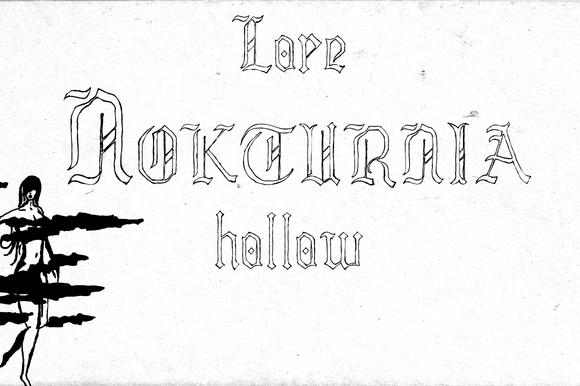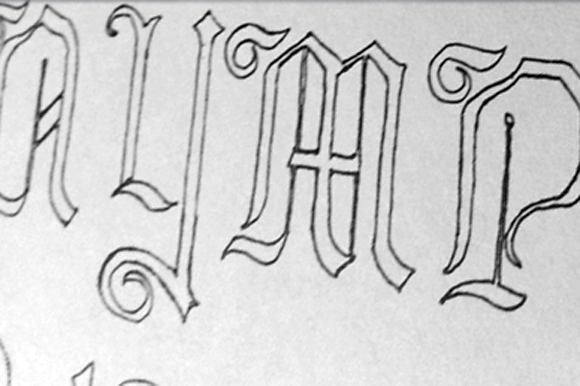
Introduction to Lore Nokturnia Hollow Font
Have you ever been working on a creative project and felt like something was missing, like a piece of the puzzle that just wouldn’t fit? That’s exactly what happened to me when I was designing a branding campaign for a client. I was searching for the perfect font to give their brand a unique touch, and that’s when I stumbled upon the Lore Nokturnia Hollow Font by Dawnland. This enchanting font has been a game-changer for designers like me, and I’m excited to share its story with you.
As a valuable design resource, the Lore Nokturnia Hollow Font offers a high-quality, free download that’s perfect for any creative project. With its transparent background, this font is versatile and can be used in a variety of ways, from logo designs to social media graphics. Whether you’re a seasoned designer or just starting out, the Lore Nokturnia Hollow Font is a must-have in your design arsenal.
Key Features of Lore Nokturnia Hollow Font
- High-quality font design with a unique, eerie aesthetic, perfect for creative projects and design resources.
- Font size: 1,000 glyphs, providing a comprehensive set of characters and symbols for creative expression.
- Resolution: Optimized for high-resolution displays, ensuring crisp and clear typography in various design applications.
- Unique characteristics: Distinctive, gothic-inspired design elements, making it an excellent choice for horror-themed, dark fantasy, or mystery-inspired creative projects.
Honest Review: Lore Nokturnia Hollow Font
As a designer, I’m always on the lookout for unique and high-quality design resources to enhance my creative projects. Recently, I came across the Lore Nokturnia Hollow Font, and I’m excited to share my honest review.
Here are the things that work well:
- ✨ High quality: The font is well-designed and visually appealing, with a sleek and modern aesthetic.
- ✨ Transparent background: The font’s transparent background makes it easy to use on different backgrounds and designs.
- ⚠️ Limited character set: The font only includes a limited set of characters, which may not be suitable for all design projects.
- ⚠️ Not suitable for large text: The font may not be the best choice for large text, as it can become difficult to read.
Overall, I’m impressed with the Lore Nokturnia Hollow Font. It’s a great addition to any designer’s toolkit, and its unique aesthetic makes it a great choice for creative projects. While it has some limitations, I think it’s well worth the download.
Design Tips and Common Use Cases
To get the most out of the Lore Nokturnia Hollow Font, use it with a transparent background to create a high-quality design. This font is ideal for logos, branding materials, and creative projects that require a unique touch.
Is the Lore Nokturnia Hollow Font high-quality and suitable for print use?
Yes, the Lore Nokturnia Hollow Font is a high-quality design resource, carefully crafted to ensure optimal legibility and aesthetic appeal. The font is designed to be versatile and suitable for a wide range of creative projects, including print materials, digital art, and web design. However, please note that the font’s quality and suitability for